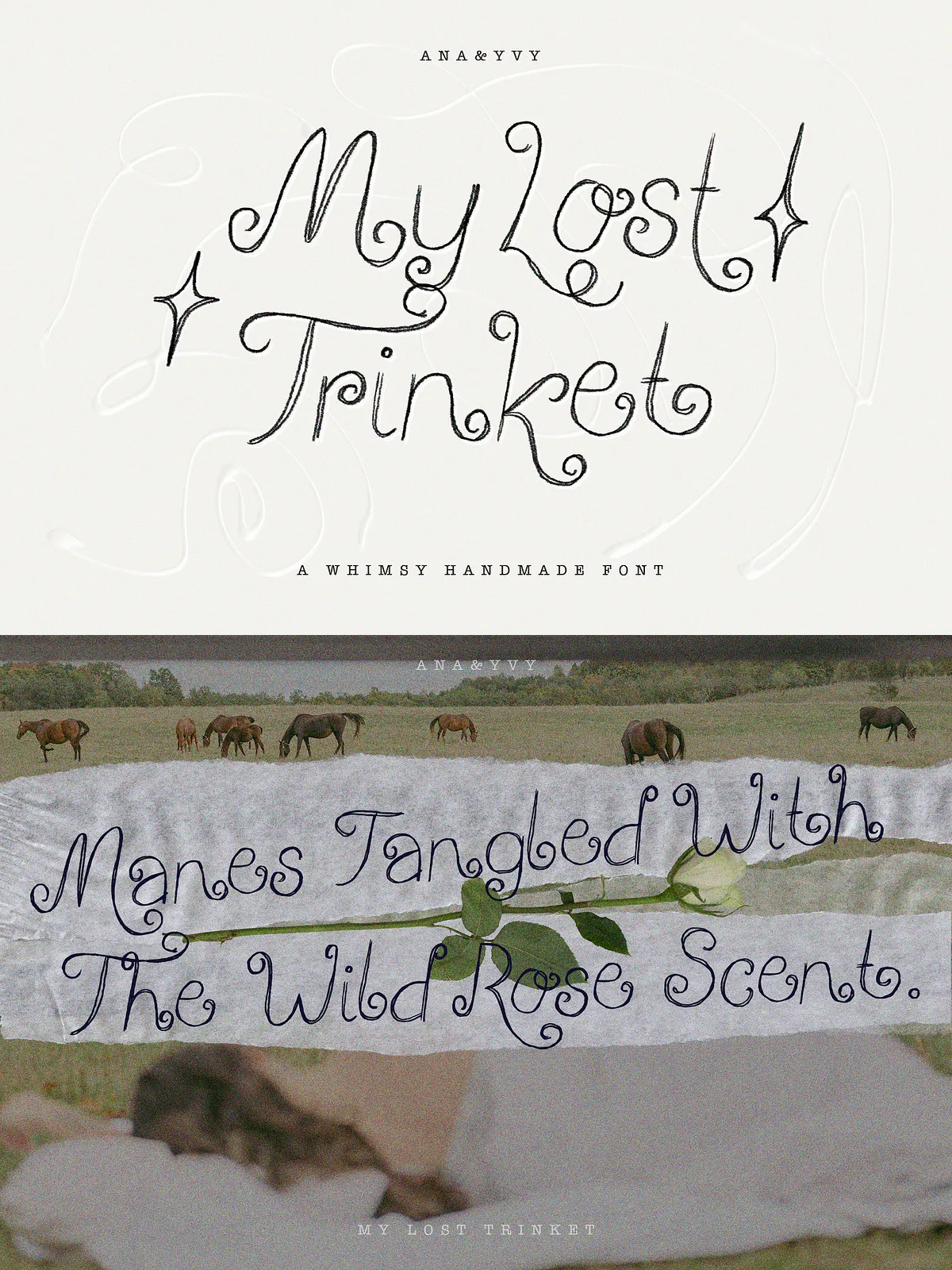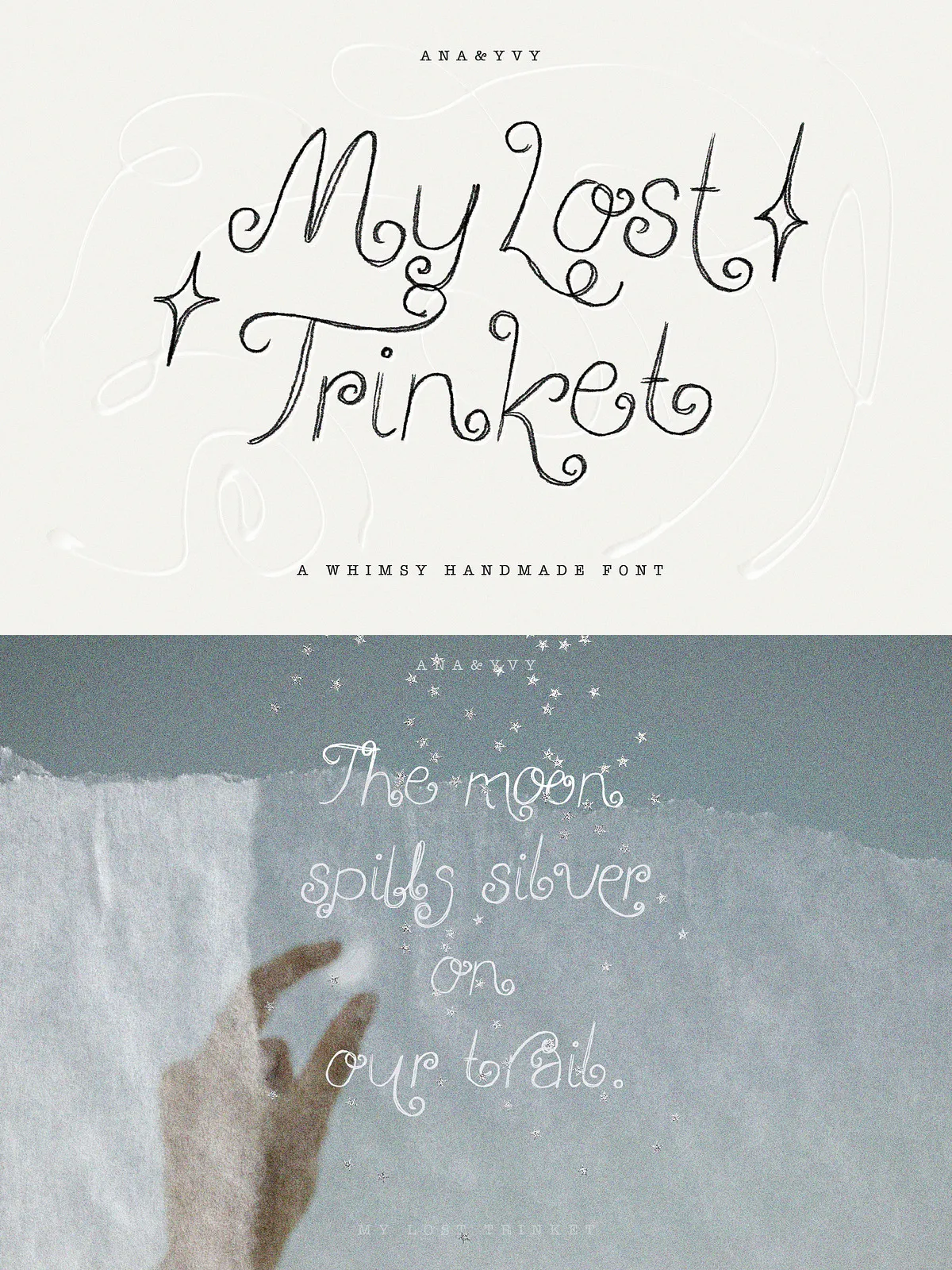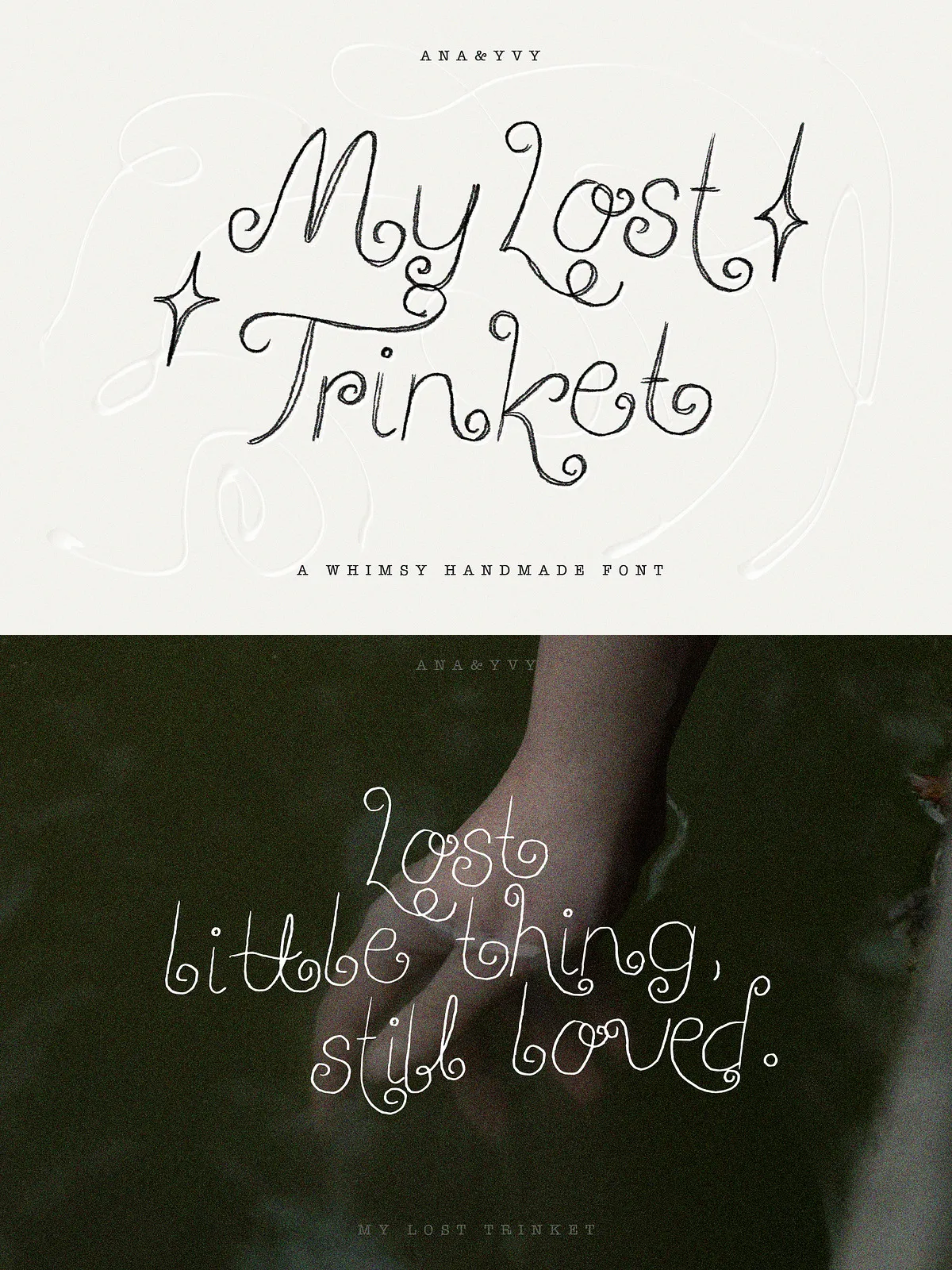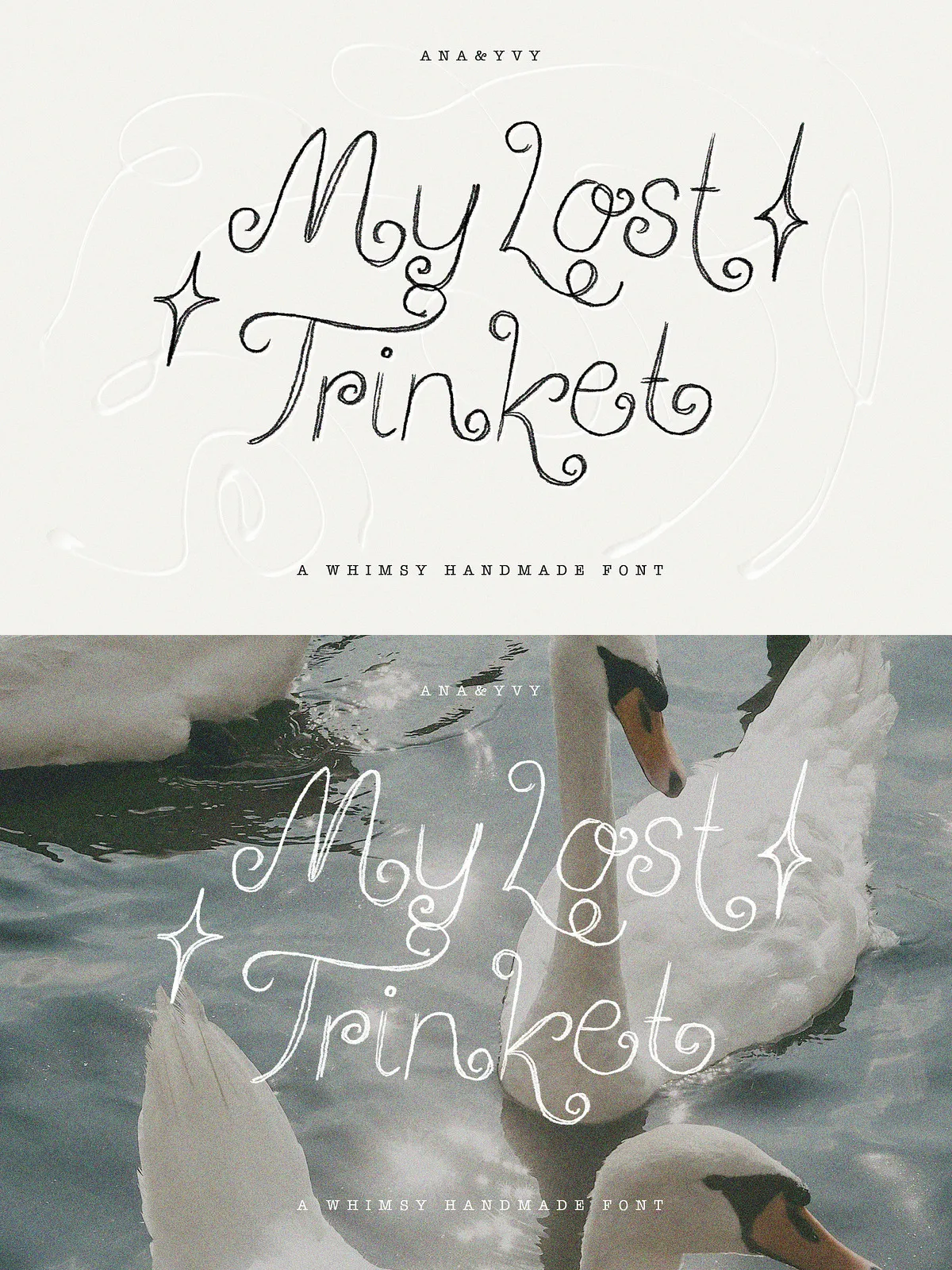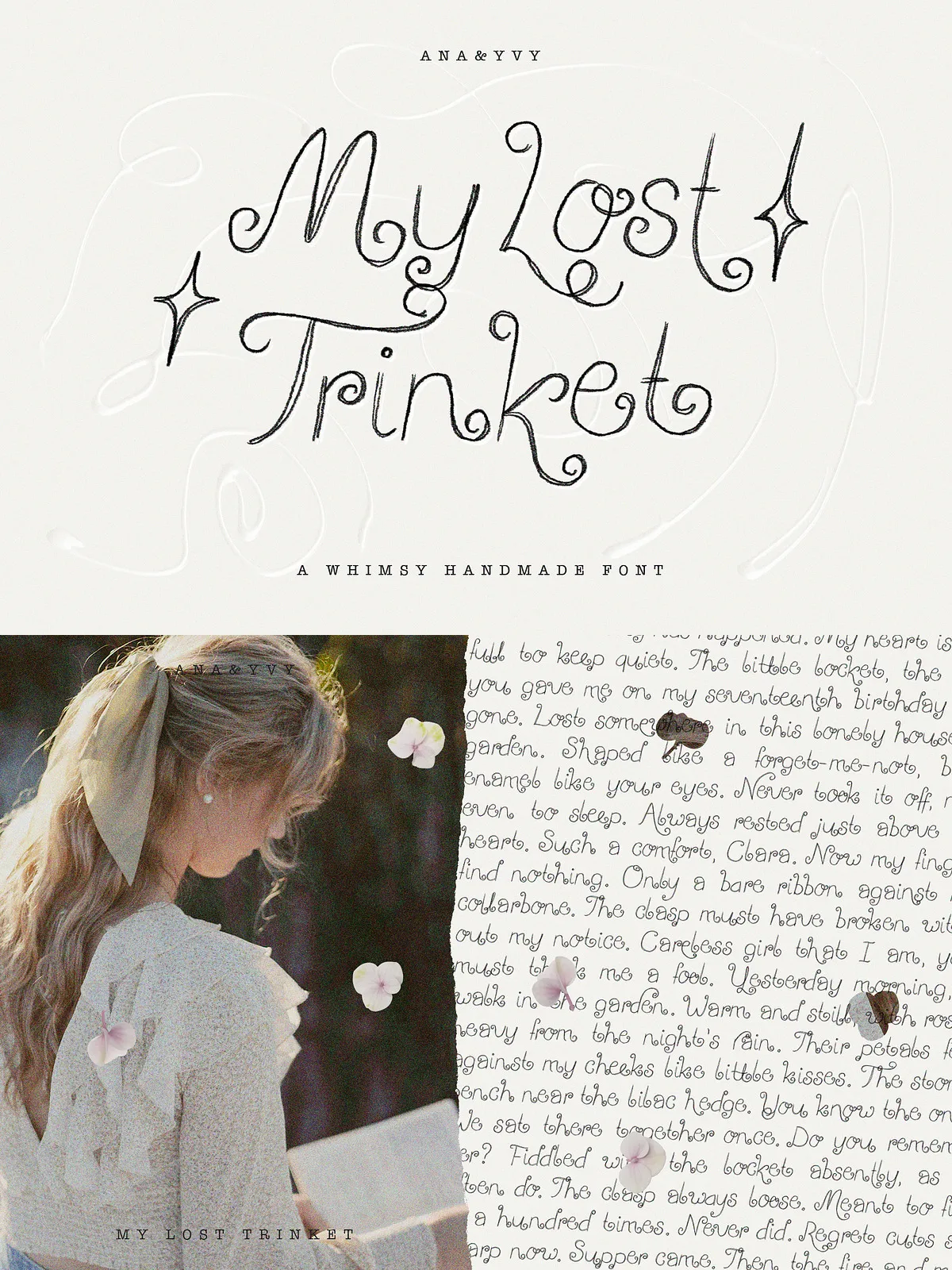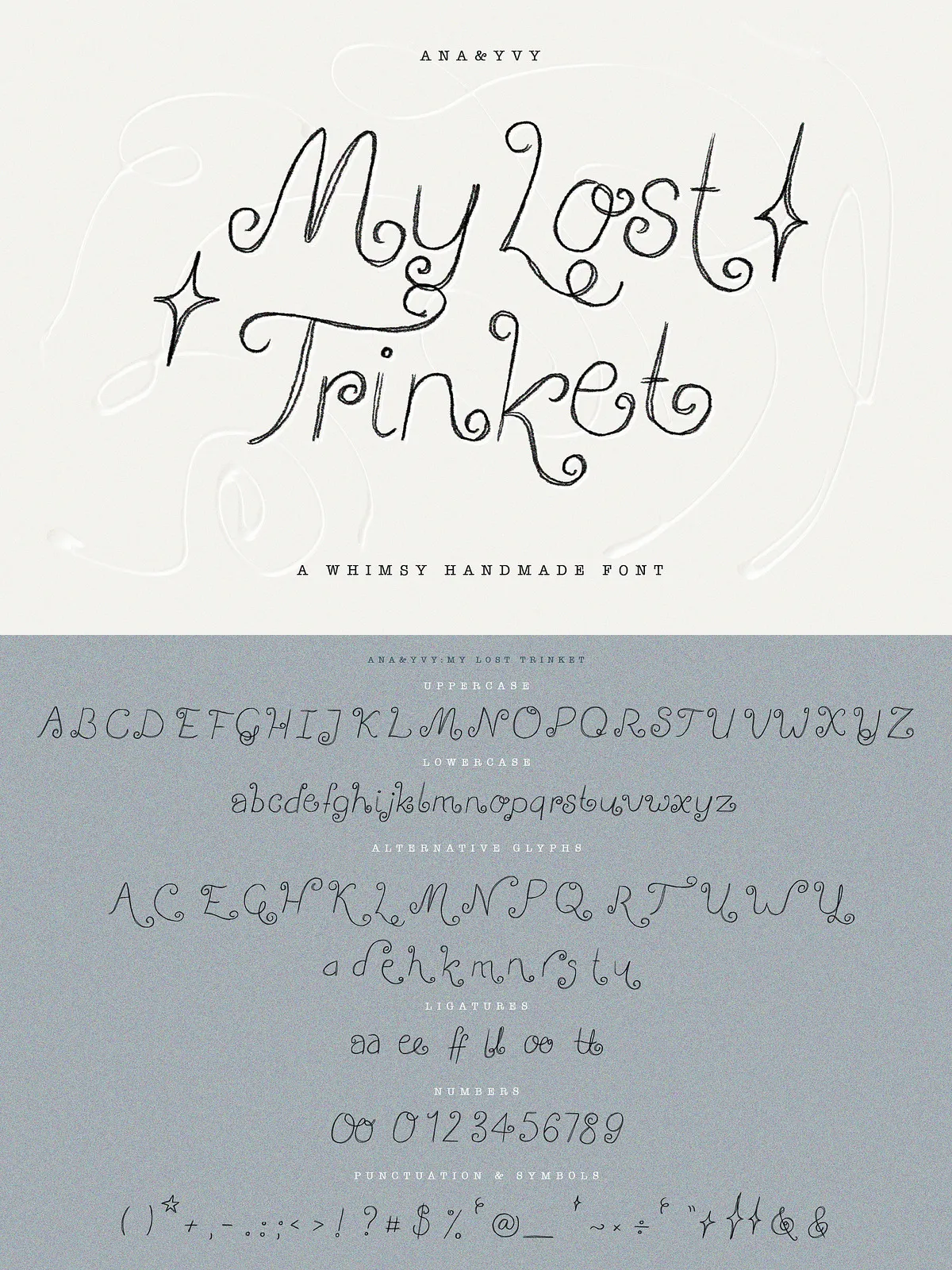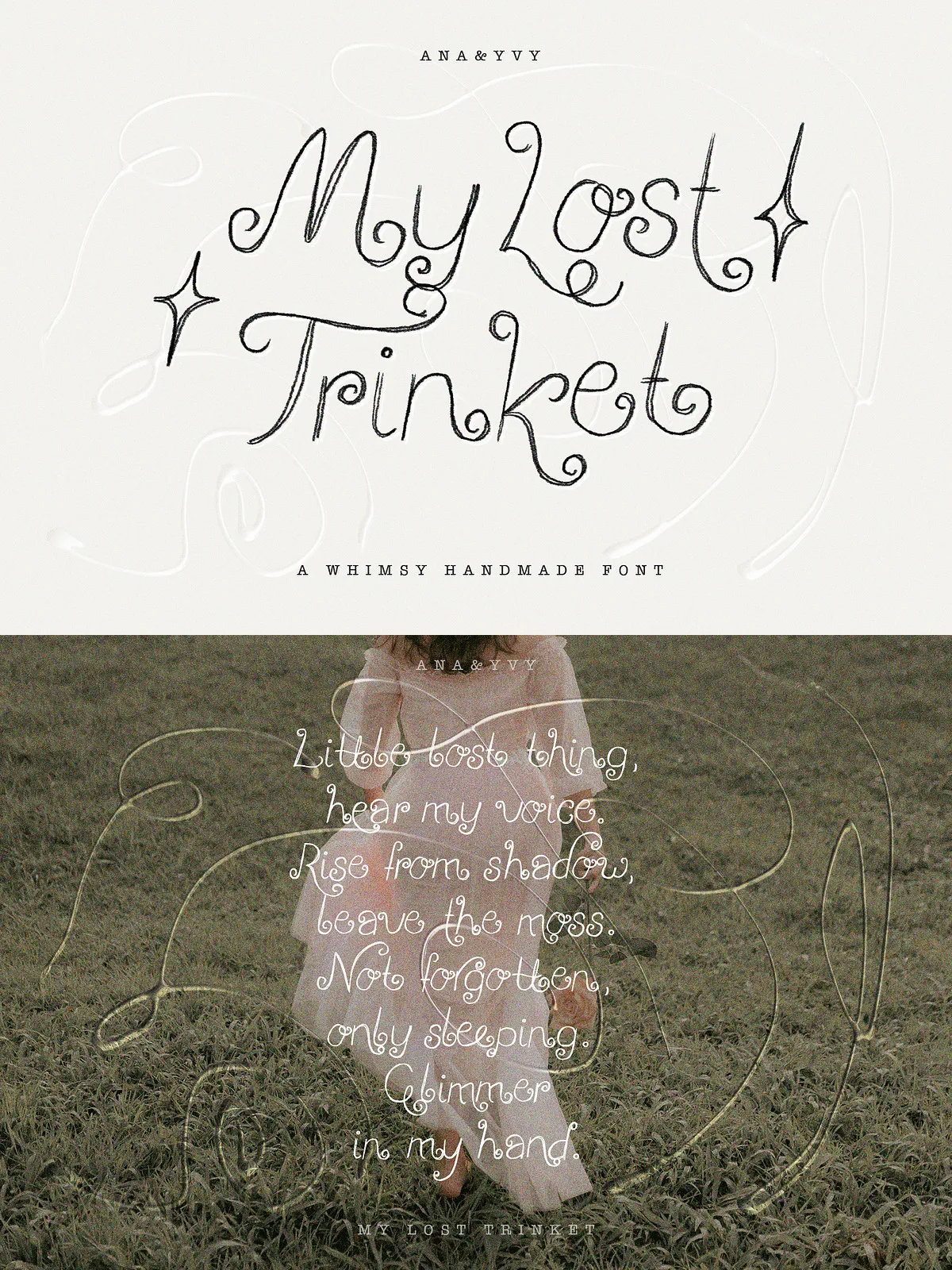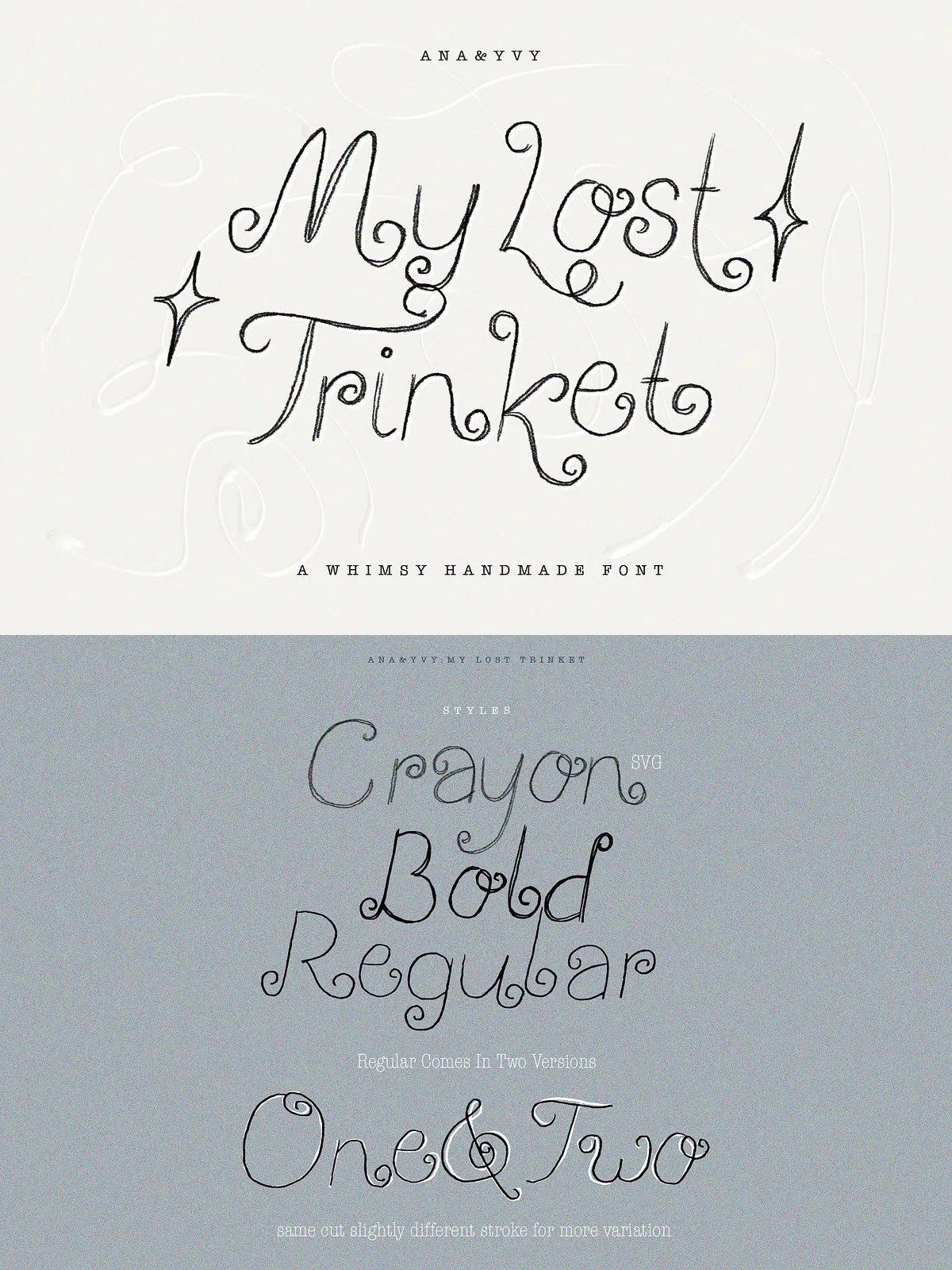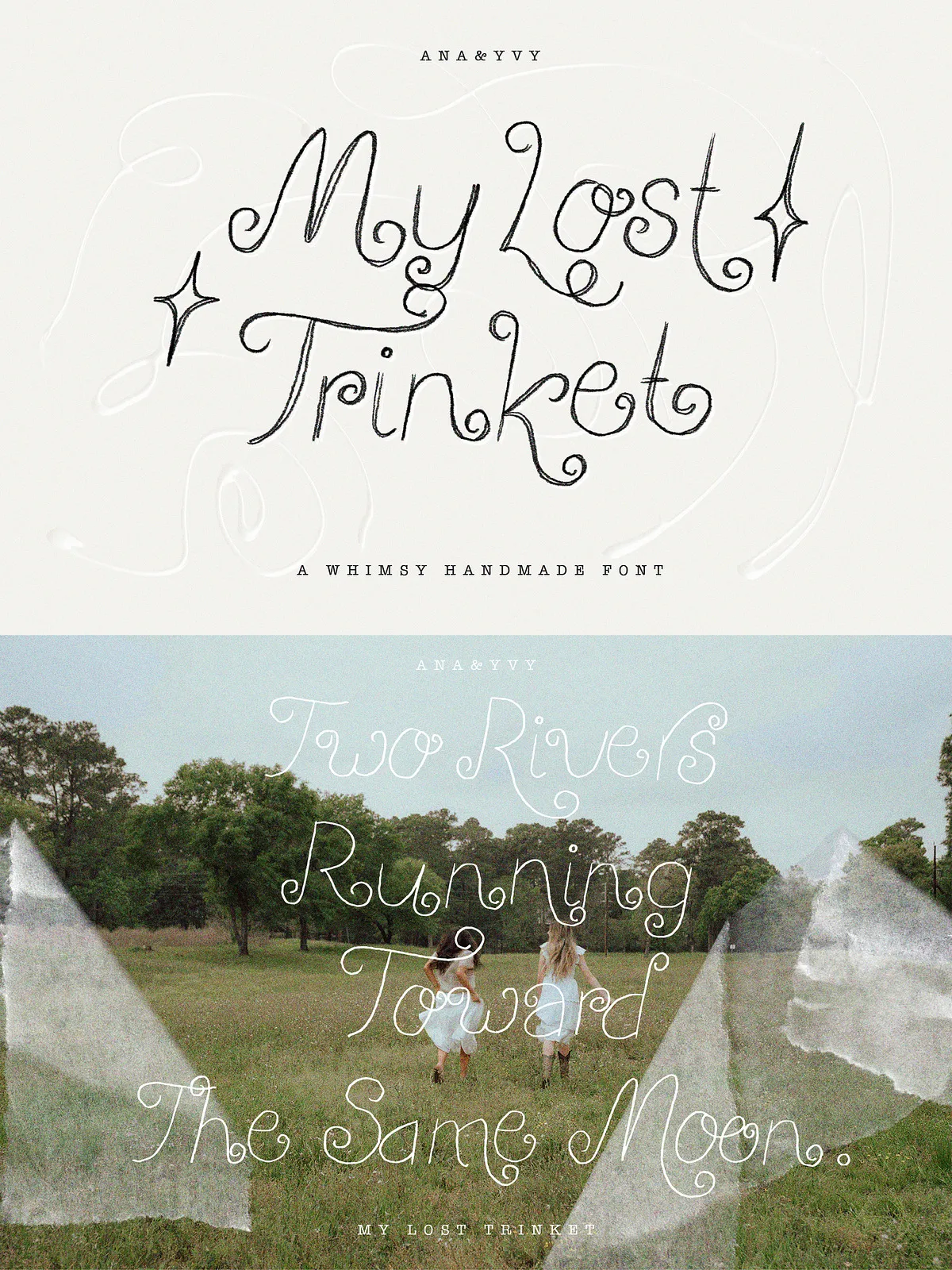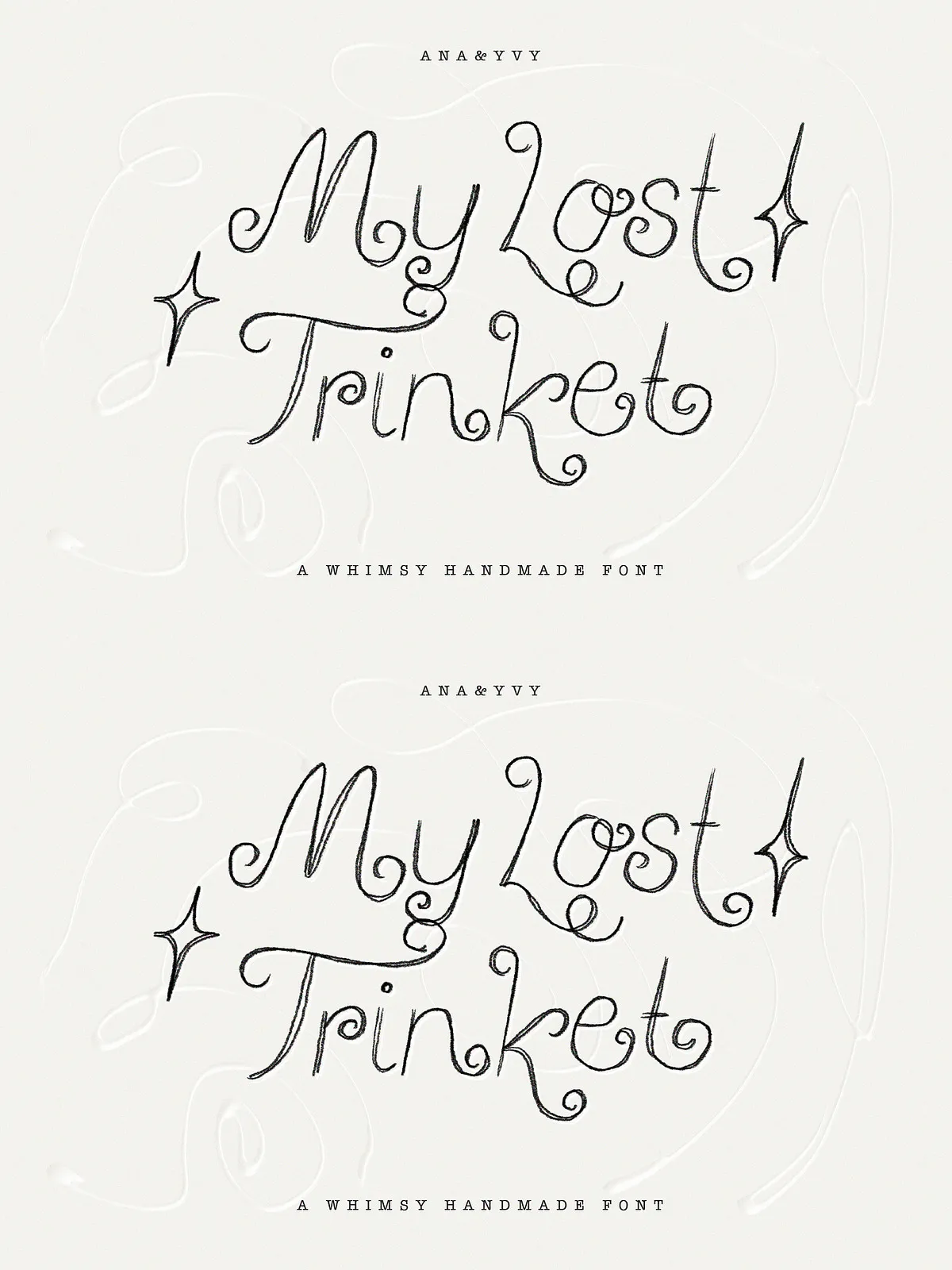
My Lost Trinket delivers a lively, hand-crafted aesthetic that brings playful charm to every design. This whimsical curly font family emphasizes natural irregularities and human warmth, making it perfect for projects that need an authentic, handmade voice. The collection features multiple stylistic options including an expressive crayon-like texture and a striking double-lined version to help designs stand out.
Design Character
The letterforms combine soft curves, playful curls, and subtle inconsistencies that read as deliberately hand-drawn rather than mechanically produced. Alternates and ligatures create natural connections between letters and add personality to words and short phrases. The double-lined style and SVG texture introduce decorative depth, while the bold weight provides confident presence for headlines and focal elements.
- Alternate glyphs and discretionary ligatures accessible through design software glyph panels
- SVG styling for textured, crayon-like appearances suitable for display use
Recommended Uses
My Lost Trinket excels in projects that benefit from a whimsical, artisanal look. Apply it to:
- Branding and logos for boutique shops, creatives, and handmade product lines
- Greeting cards, stationery, and personalized notes that need a personal touch
- Quotes, social media posts, and headers that require expressive, eye-catching typography
- Children’s products, nursery prints, and playful packaging that demand friendly personality
- Event invitations, labels, and craft-focused packaging that emphasize handmade character
Pairing Suggestions
Pair My Lost Trinket with a neutral, highly readable sans-serif for body copy to maintain legibility while preserving the display font’s personality. For vintage or storybook layouts, combine it with a restrained serif to ground the composition. When using the double-lined or SVG styles, reserve them for short lines, headlines, or logotypes to avoid visual clutter at smaller sizes.
- Hand-drawn letterforms with alternate glyph options for stylistic variety
- SVG variant for textured, crayon-like detail (supported in SVG-enabled applications)
- Bold weight included for stronger display use
Design Tips
Reserve My Lost Trinket for headlines, short phrases, and decorative uses to maximize its visual impact. Increase tracking slightly for longer text lines to maintain legibility, and avoid heavy drop shadows or complex textures that obscure the delicate details of the SVG texture. When preparing prints on textured stock or fabric, run proofs to confirm that the crayon-like strokes reproduce cleanly.